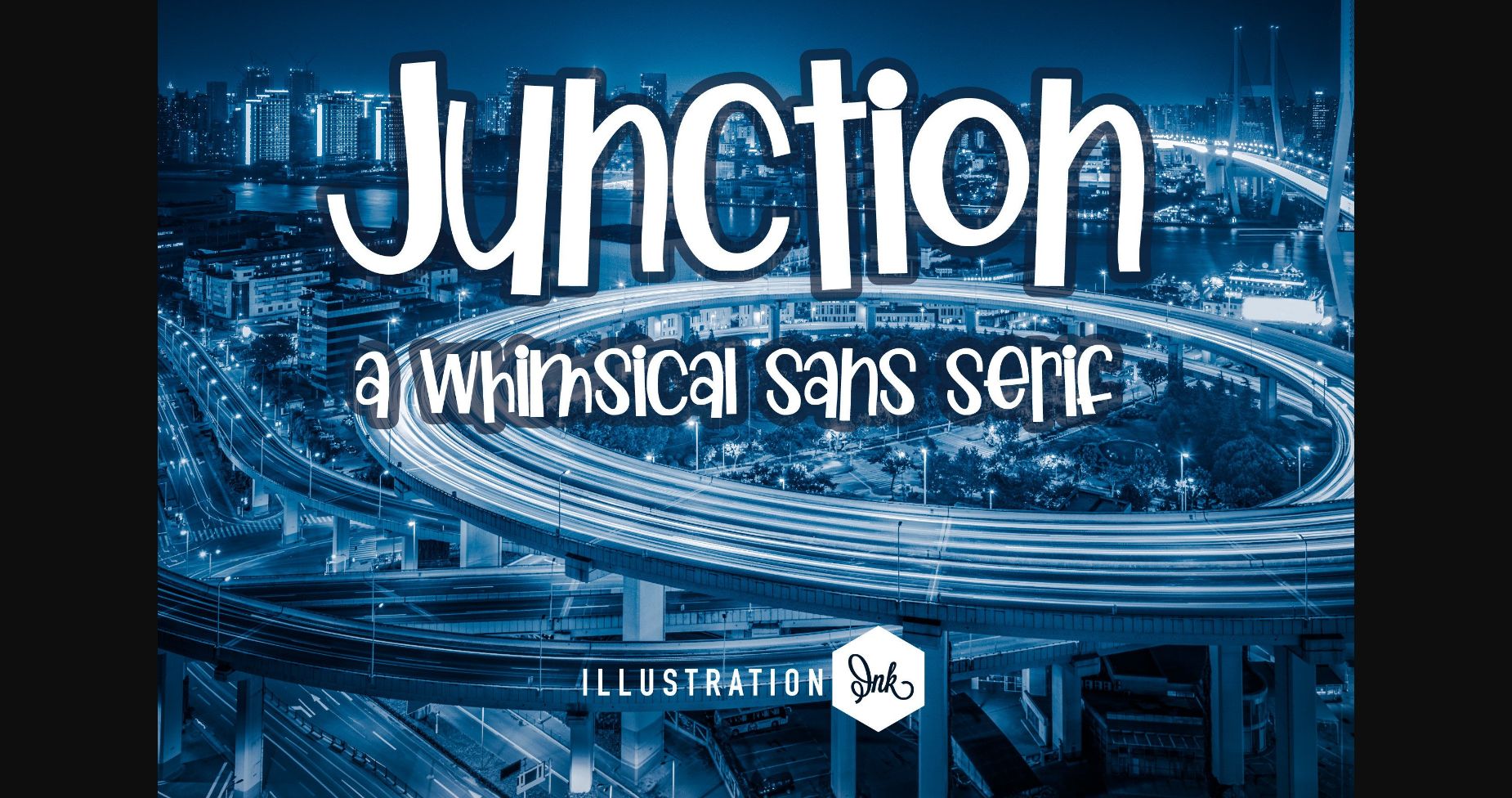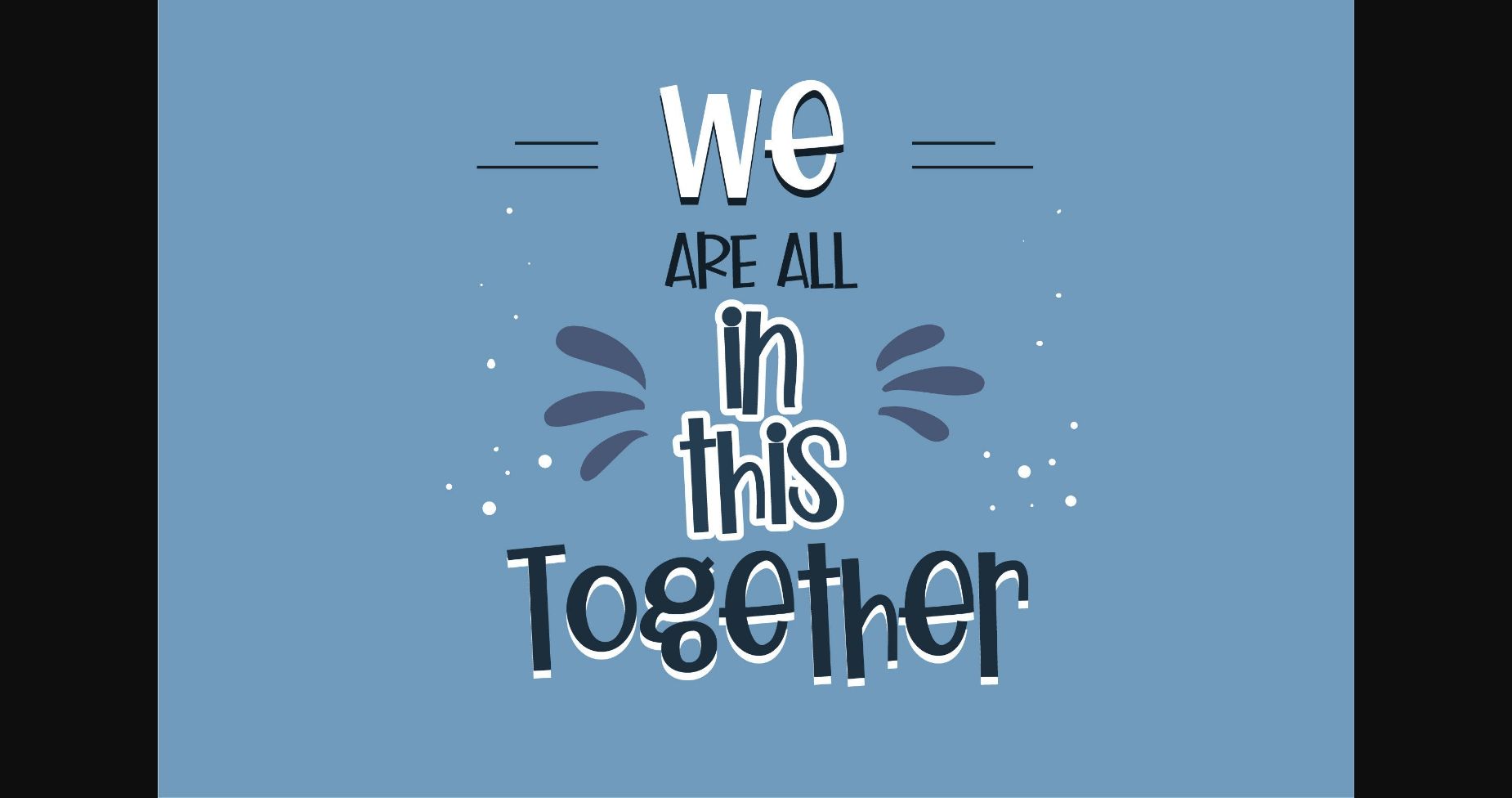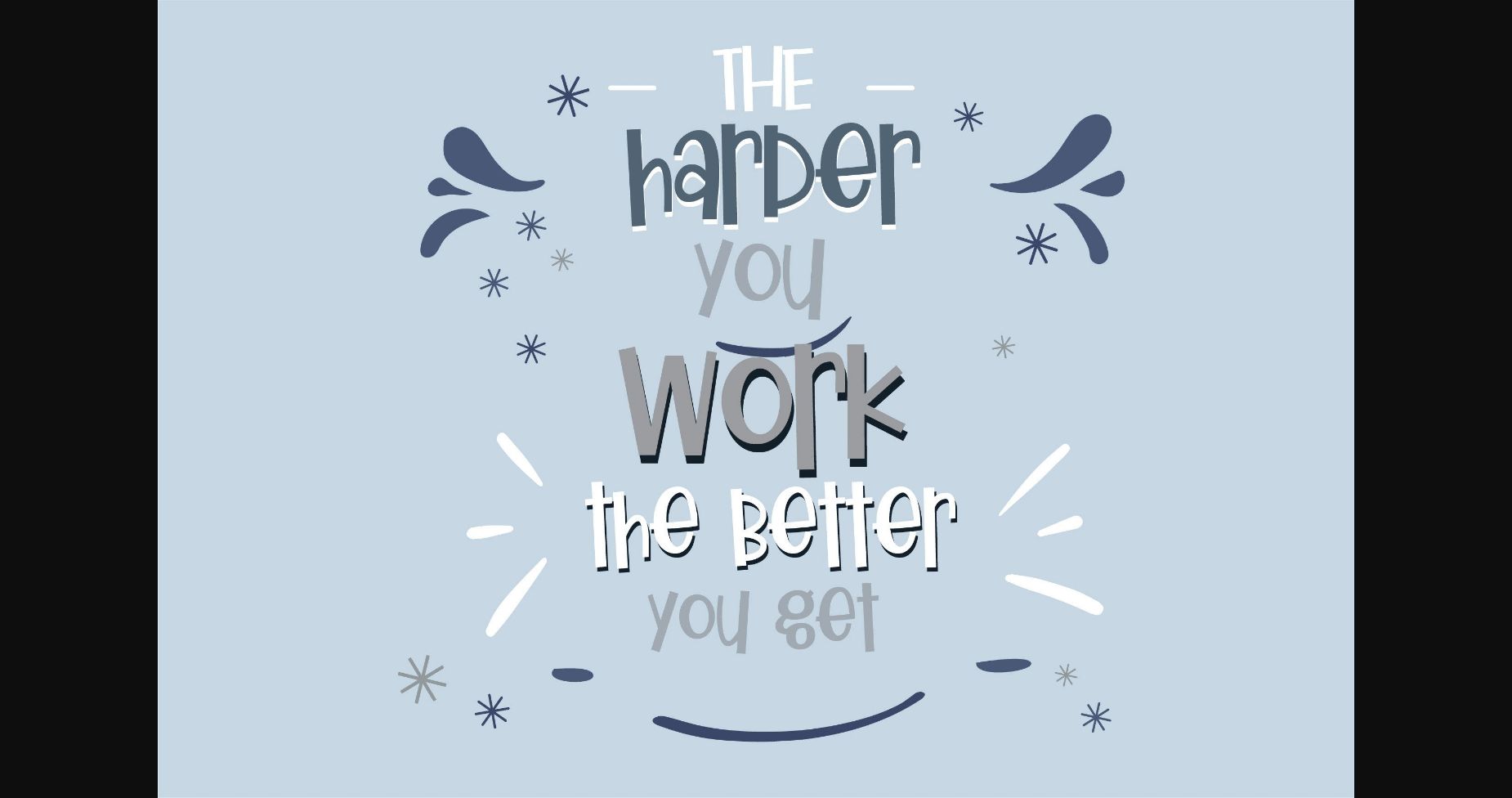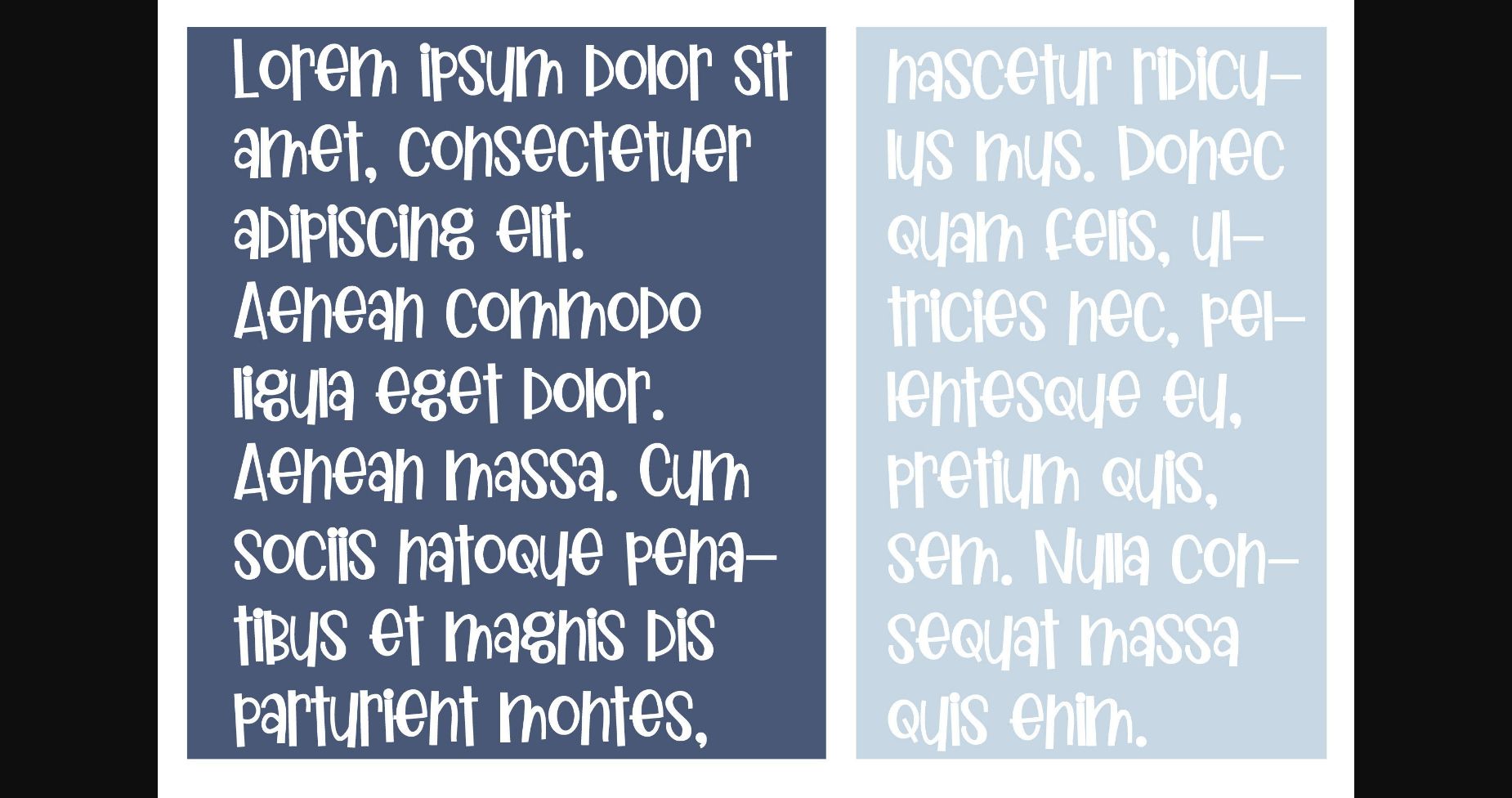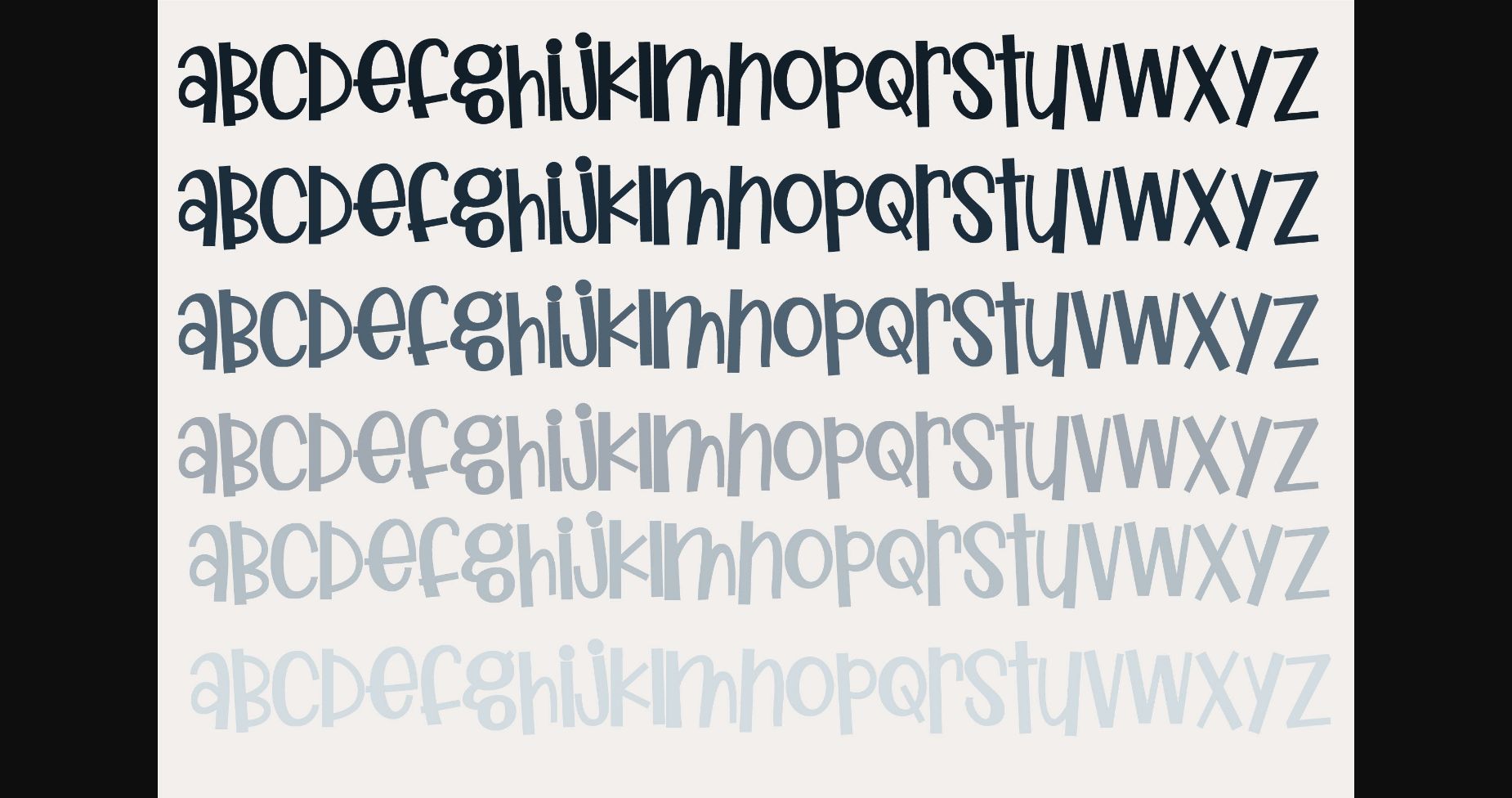
About Junction Font
This simple hand-written sans serif is a casual and very youthful print with no descenders. The letters look perfectly cheerful and modern.